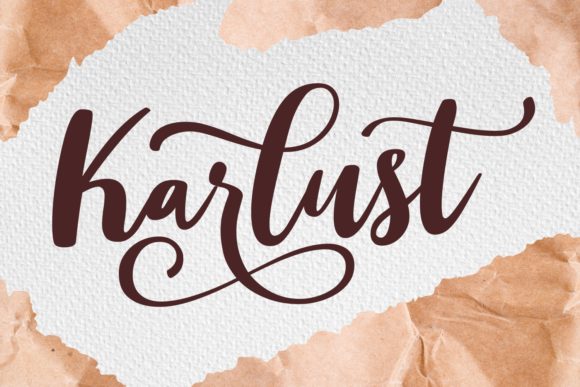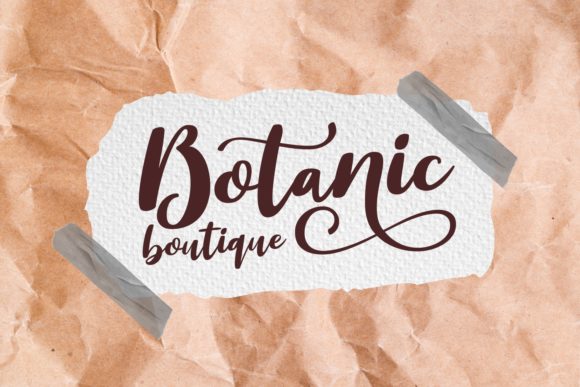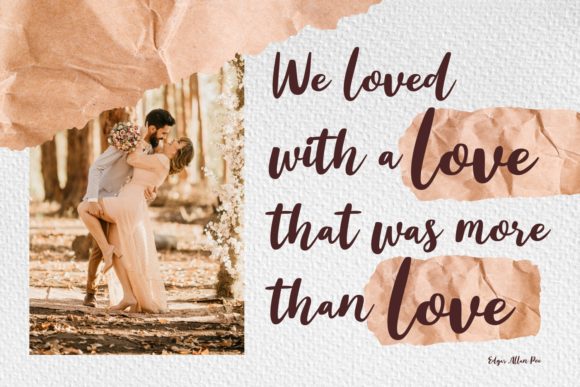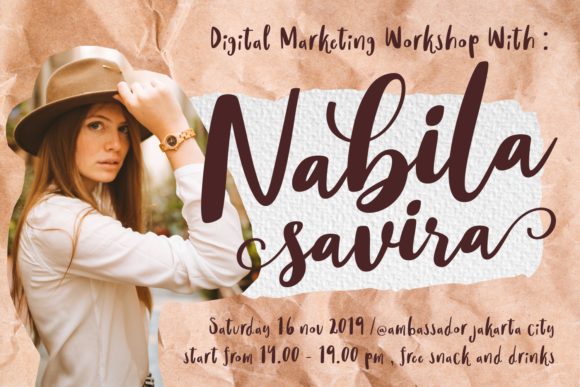
HomeScript FontsKarlust Font Script Fonts Karlust Font FacebookXPinterestWhatsApp Karlust Font Poster 2 Karlust Font Poster 3 Karlust Font Poster 4 About Karlust Font Karlust is a cheerful and dynamic script that features beautiful swashes. Get inspired by its elegant charm! DOWNLOAD NOW People also explored Extrend Futura Font December Holidays Font Renaissance Font Sayday Font Terlie Font Baby Bee Font Violin Font Berinjela Font Luminaire Font 415 0 TagsKarlust Font Previous articleTaylilla FontNext articleHamble Font LEAVE A REPLY Cancel reply Comment: Please enter your comment! Name:* Please enter your name here Email:* You have entered an incorrect email address! Please enter your email address here Website: Save my name, email, and website in this browser for the next time I comment. Personal Use Free The Shocker Personal Use Free Read more about this font Adriator Personal Use Free Read more about this font Astercla Personal Use Free Read more about this font Yesstea Personal Use Free Read more about this font BLOG Best Fonts for YouTube Videos: Make Your Thumbnails Stand Out Best Fonts for YouTube Videos: Make Your Thumbnails Stand Out Choosing the right font can make a massive difference in how your YouTube videos perform.... How to Install and Use Fonts on Windows, macOS, and Web Projects Transform Your Website: Elevate Your Typography with 7 Best Web Font Generators Modern Sans-Serif Fonts That Brands Love in 2025